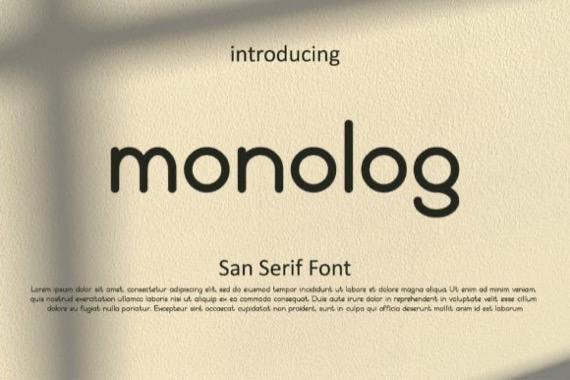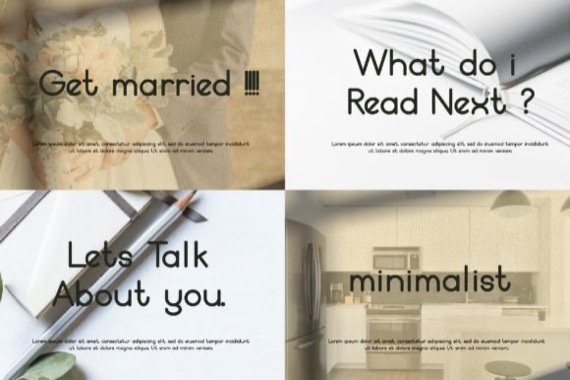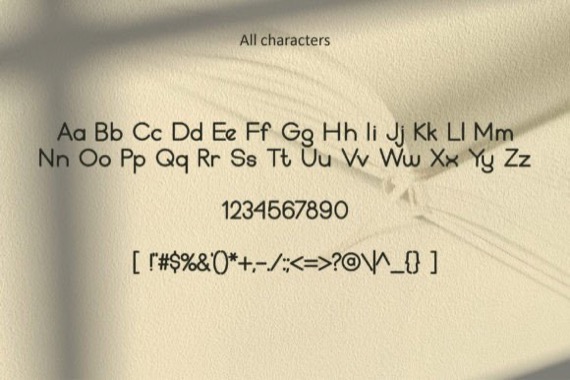
Proudly introducing a neat and clean basic typeface from Patlot Digital.std, Monolog is a modern, minimalist sans serif font. Perfect for designing websites, branding materials, marketing campaigns, and weddings, this font is sure to make its way into your design toolset.
Monolog Sans Serif Font